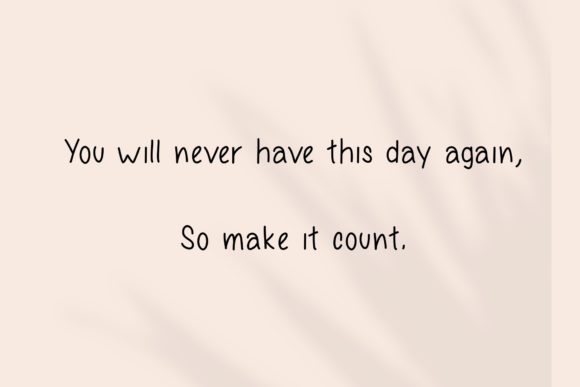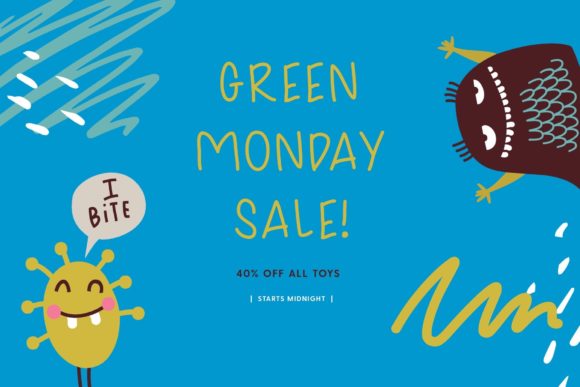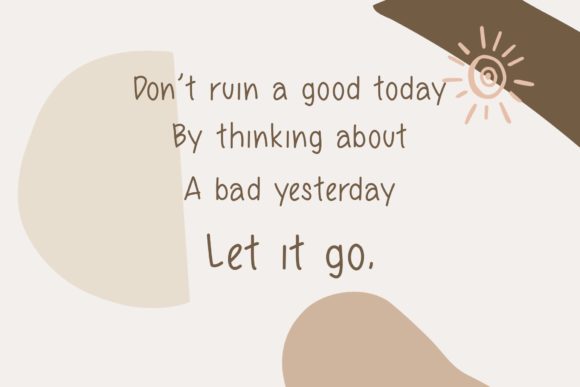
Alexandra Font
About Alexandra Font
Alexandra is a fun and quirky handwritten font, perfect for more informal design projects.
Use the font for Cricut projects, design, logos, branding, decor, mugs, pantry labels, wedding invitations, stickers, business cards, greeting cards, posters, social media, planner prints, and more!